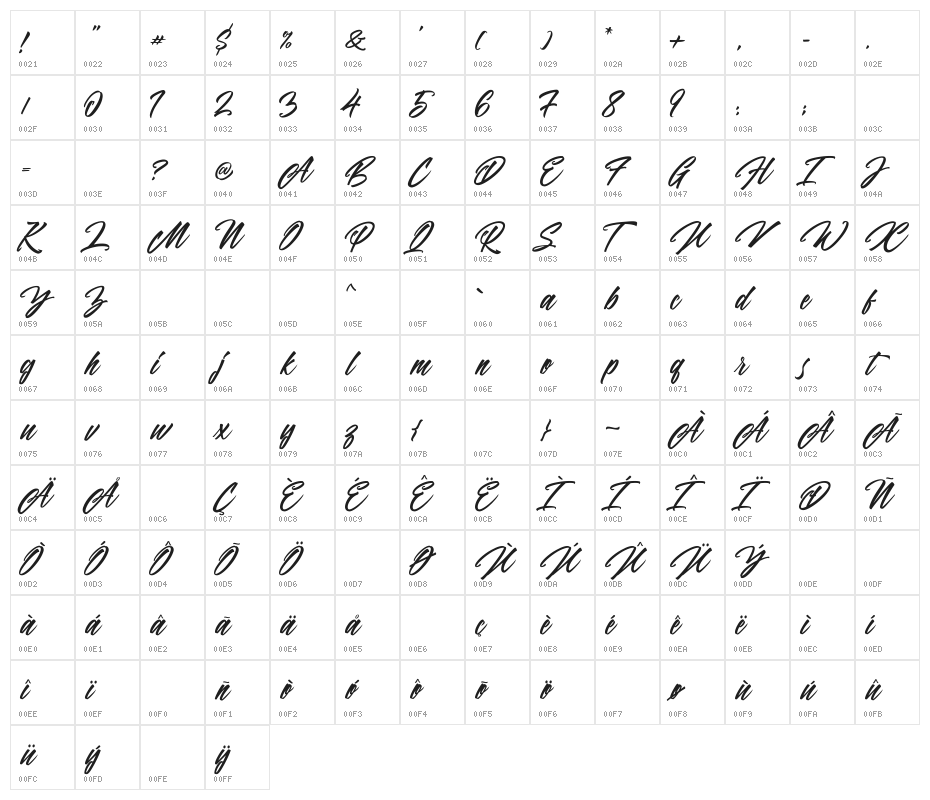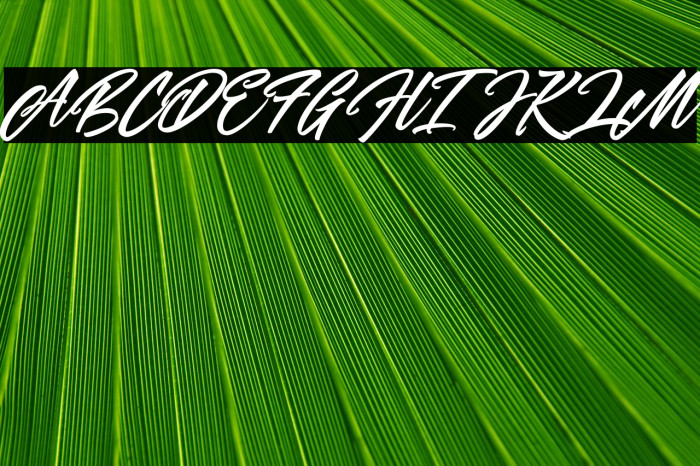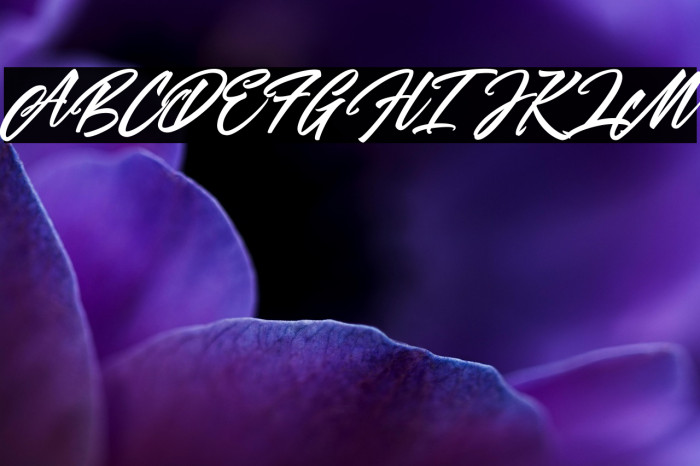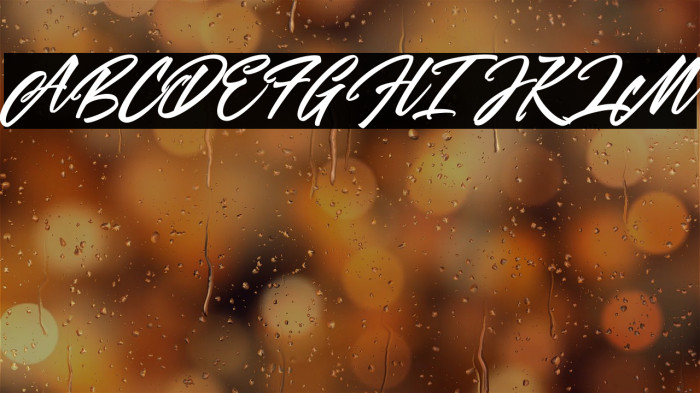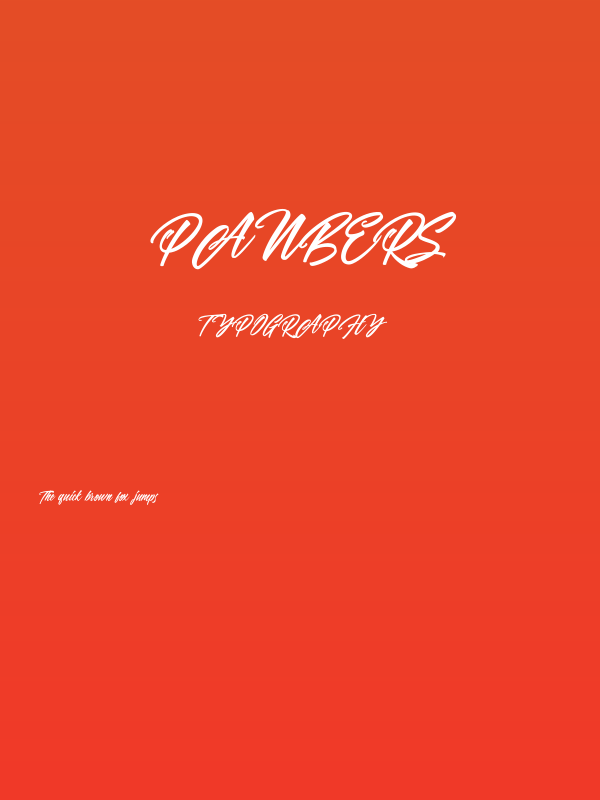
Panbers Font
Panbers Description
This font features a bold and expressive script style, characterized by its fluid and dynamic strokes. The letters are connected in a cursive manner, giving it a handwritten appearance. The uppercase letters are elegantly elongated, while the lowercase letters maintain a consistent flow. The numbers and special characters are designed to match the overall aesthetic, providing a cohesive look. This font exudes a sense of elegance and sophistication, making it suitable for projects that require a personal touch.